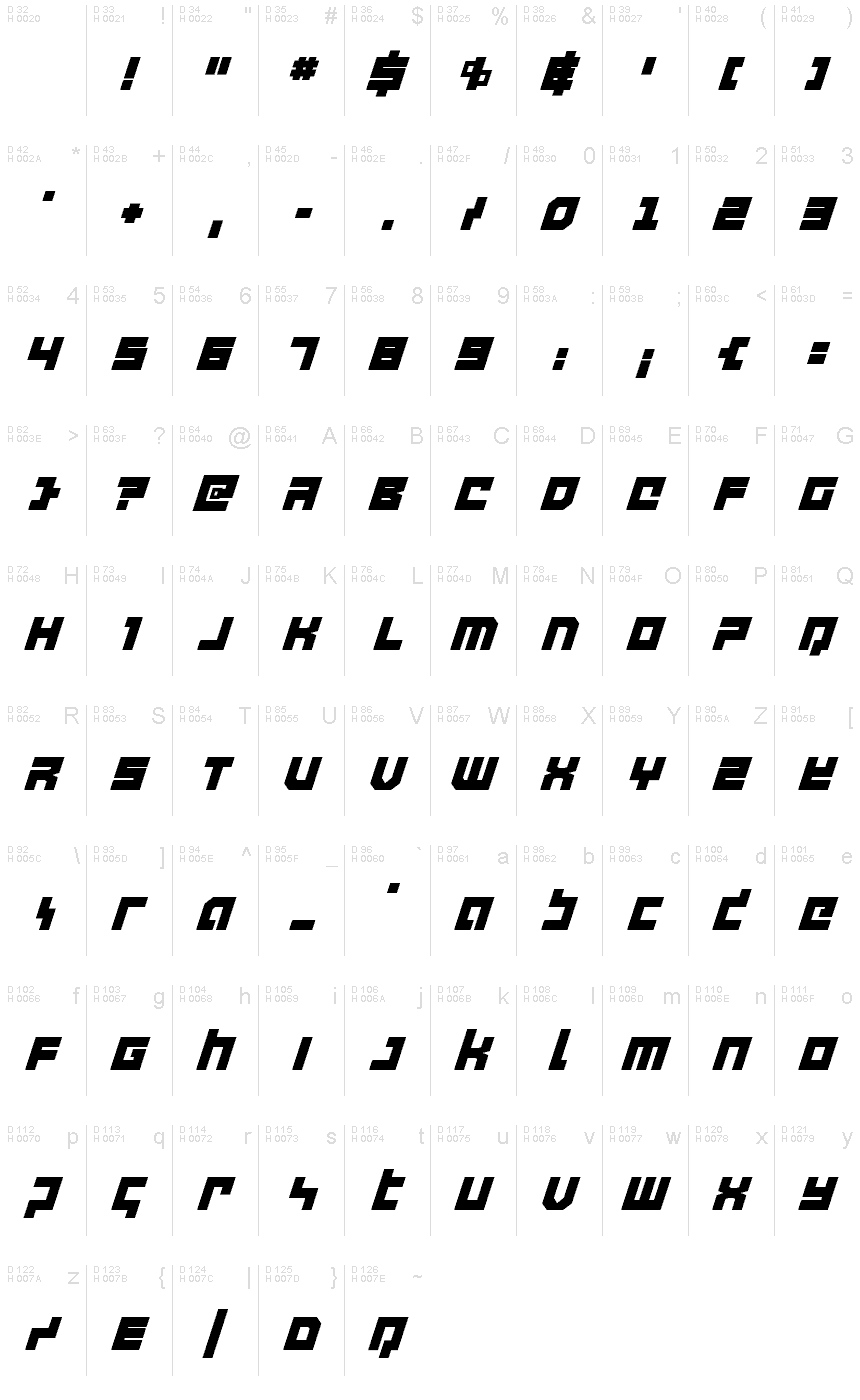
Deep Data Super-italic font by Iconian Fonts is a techno display typeface whose letters are made of sharp angular geometry. The futuristic font feels tech-inspired, perhaps like a font designed especially for sci-fi purposes. The italic and slant nature of the free display font adds to its dynamic, agile feel.
Deep Data – when used in small or large, short or long text – is at home in digital content. Create titles and headlines for websites and apps, blog posts, interface texts, posters, books and publications covers (physical/digital). Use it within advertising projects: billboards, banners (online/outdoor), flyers.